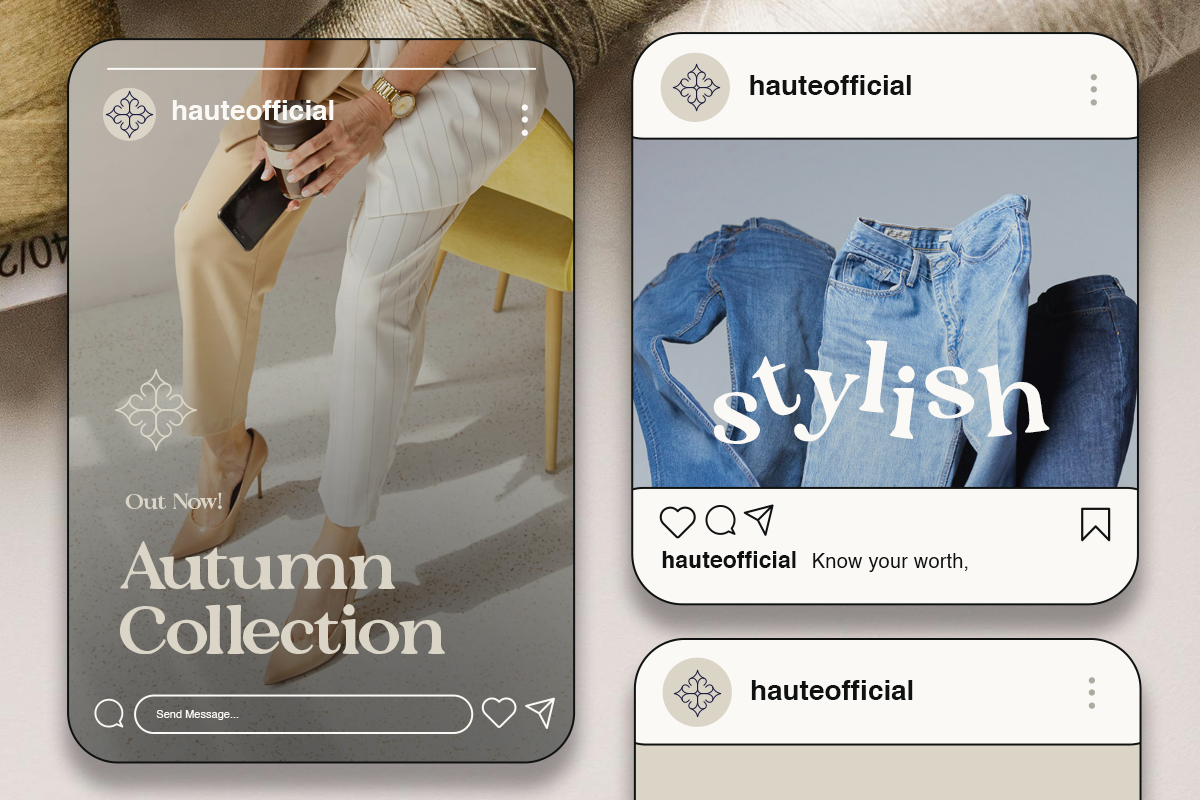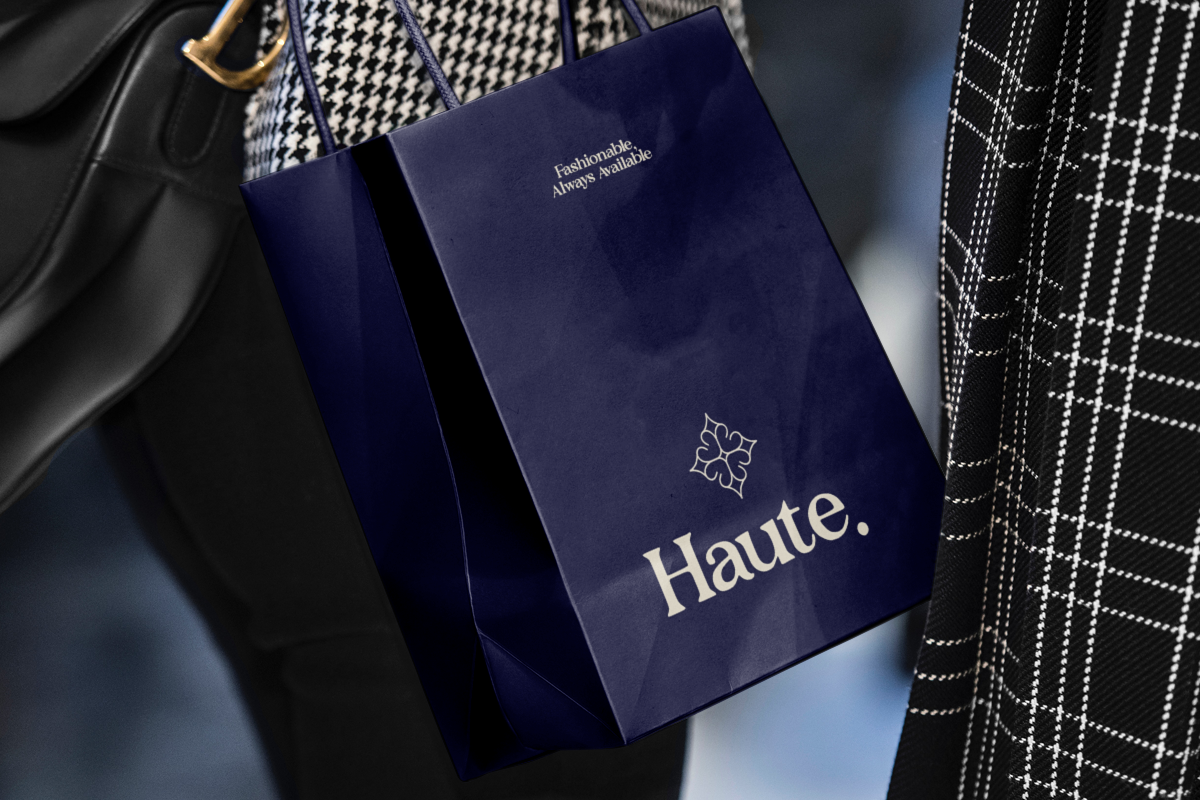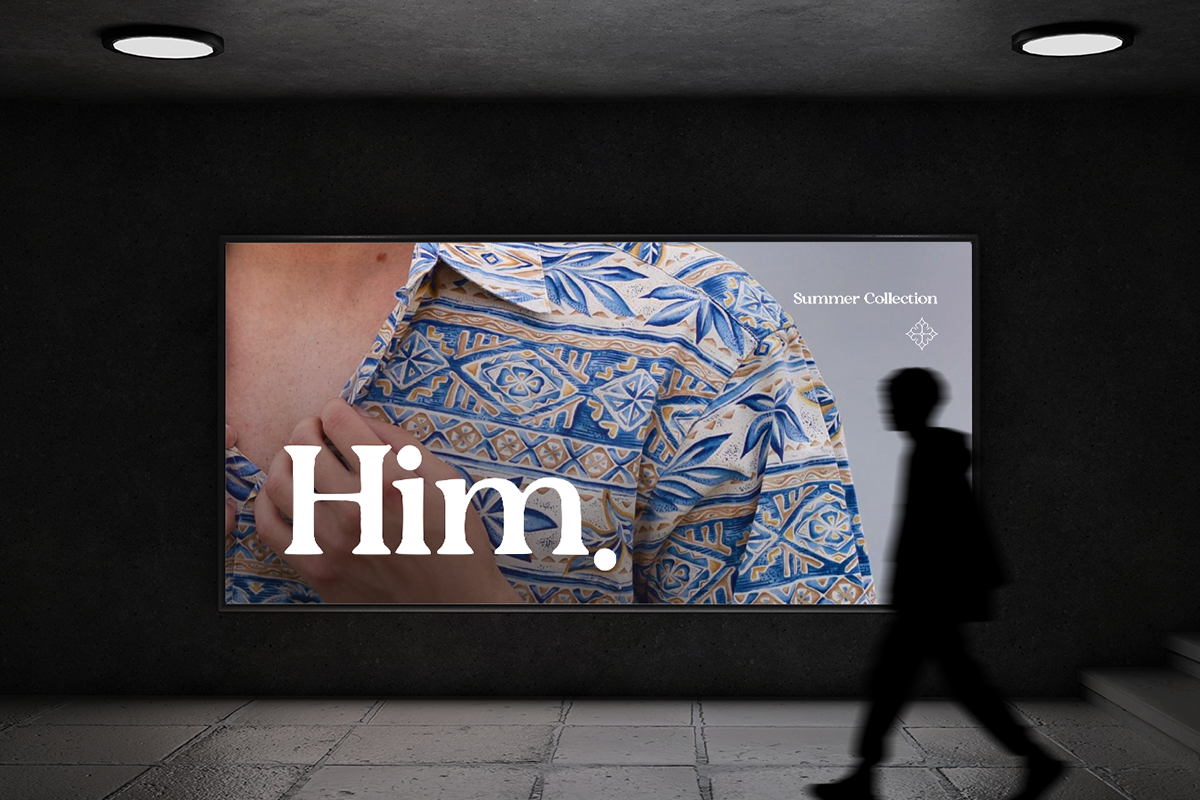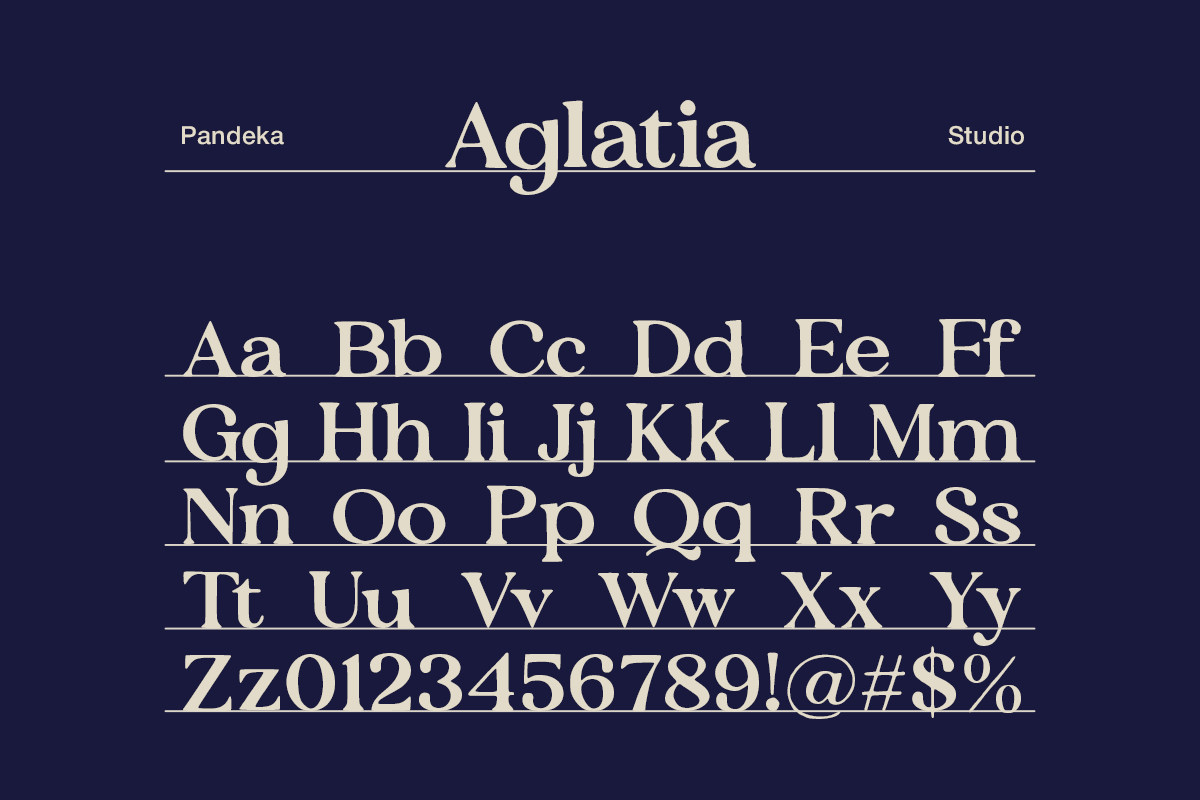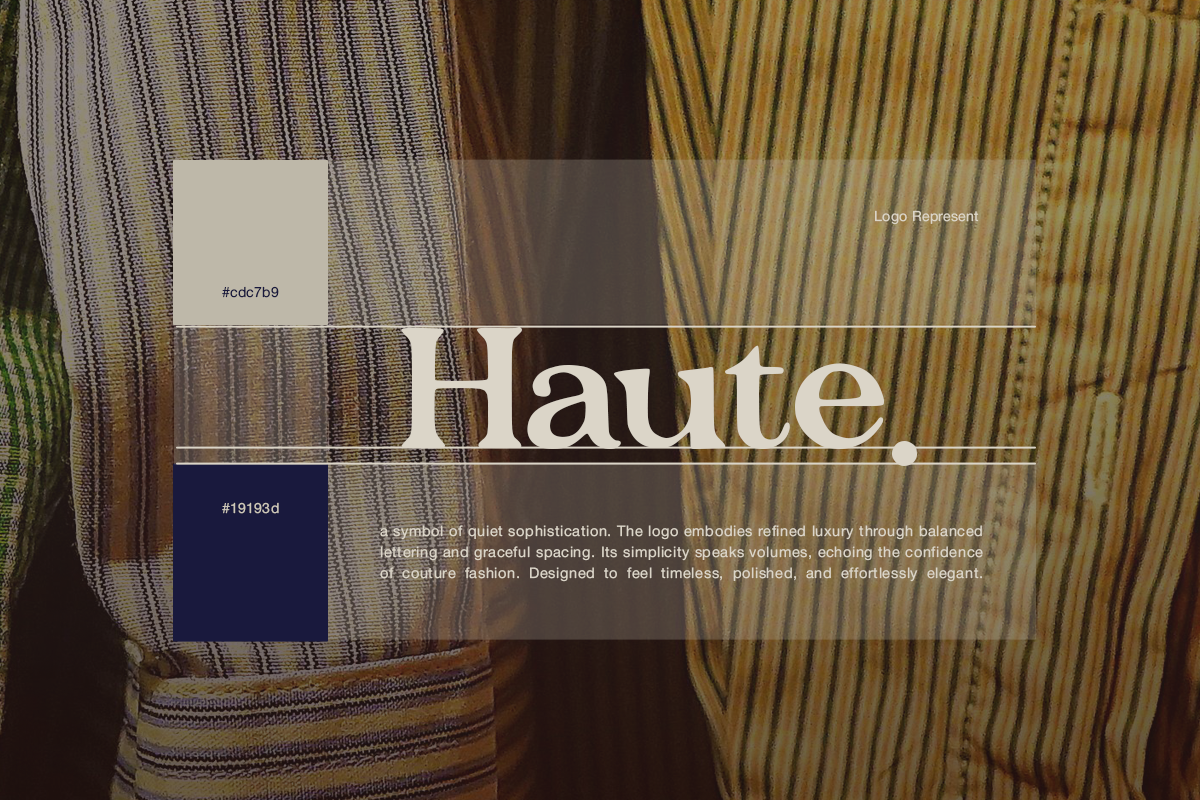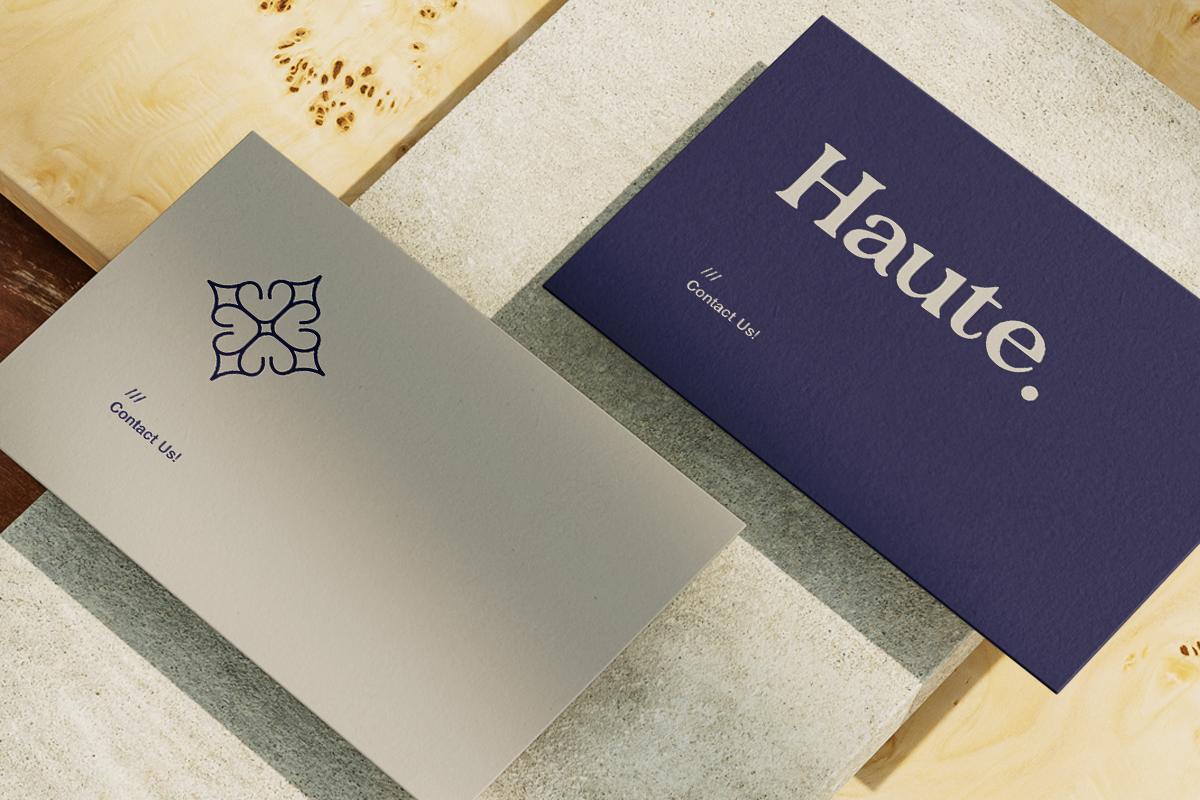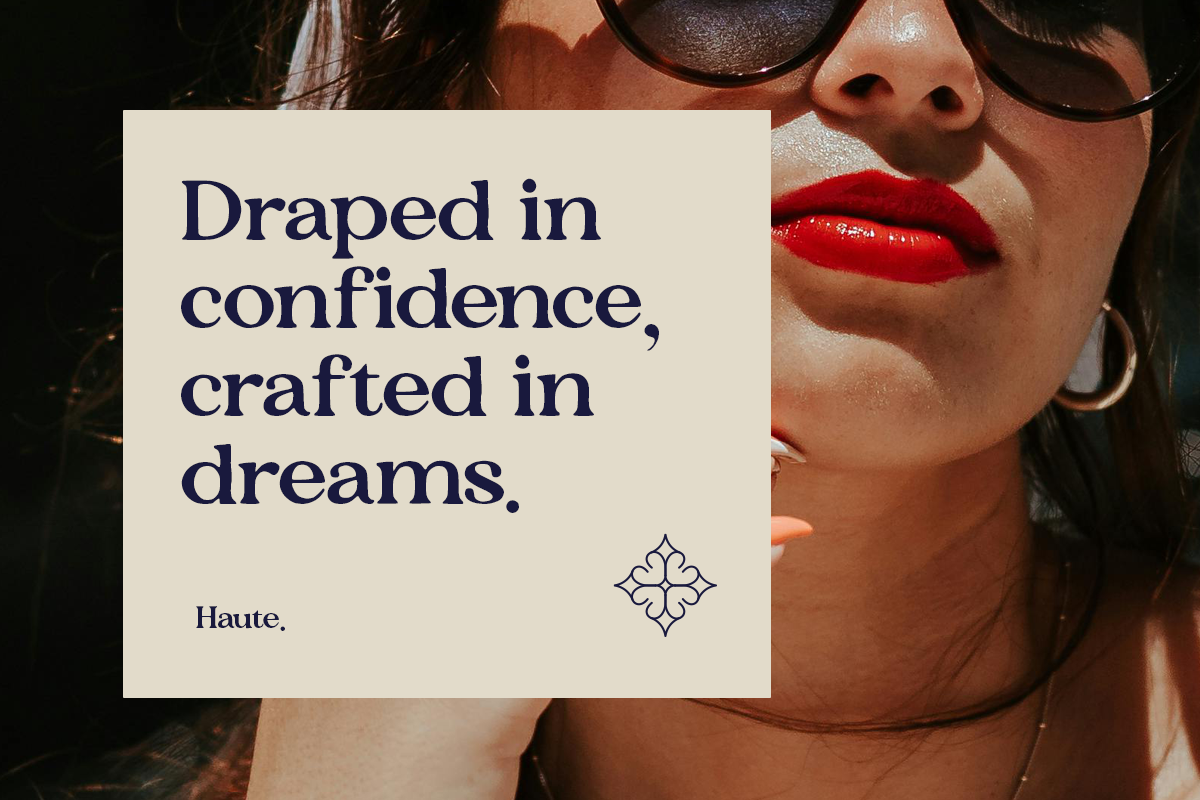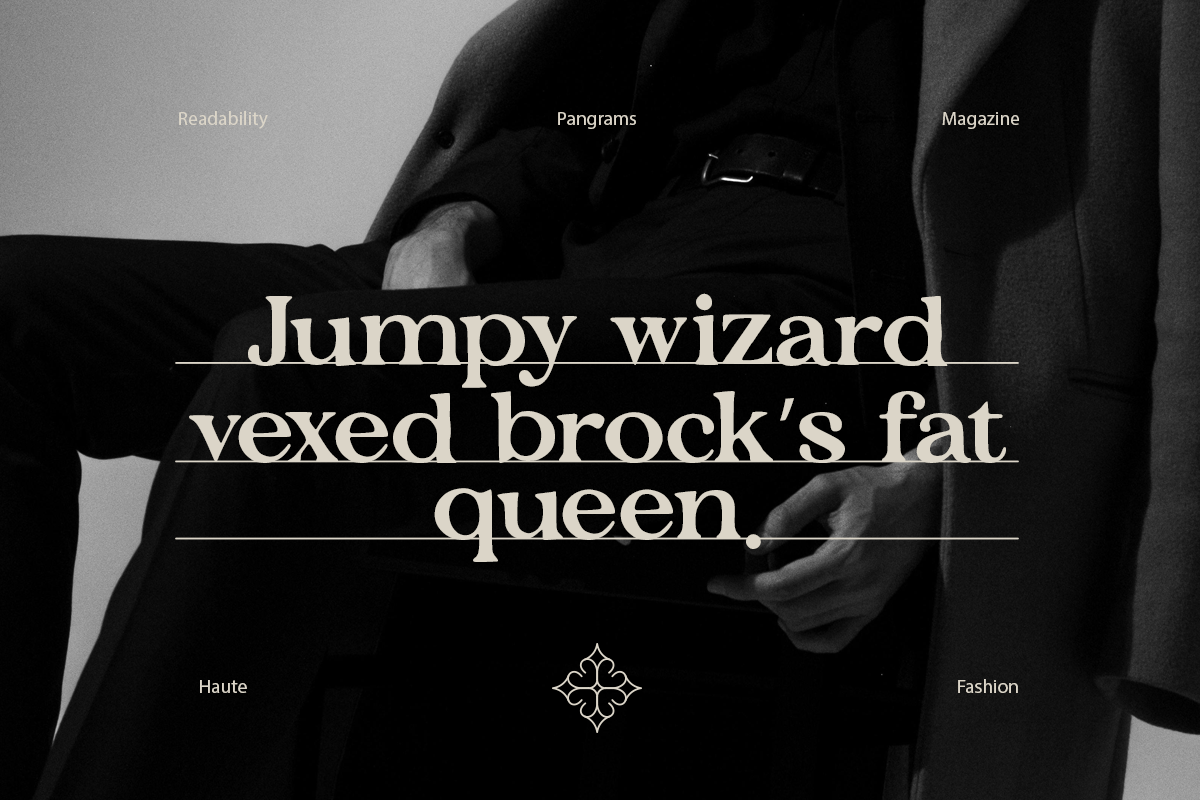
Aglatia - Luxury Magazine Serif
Aglatia is a refined serif typeface that radiates elegance and confidence, designed for luxurious editorials, high-end branding, and modern fashion layouts. With its balanced proportions and graceful details, Aglatia combines timeless sophistication with a contemporary edge — perfect for magazines, logos, invitations, and product packaging that demand a premium aesthetic.
This font includes 1 style: Regular, featuring uppercase and lowercase letters, numbers, punctuation, and multilingual support. Aglatia’s delicate curves and bold confidence make it ideal for capturing a sense of luxury and professionalism in any design project.